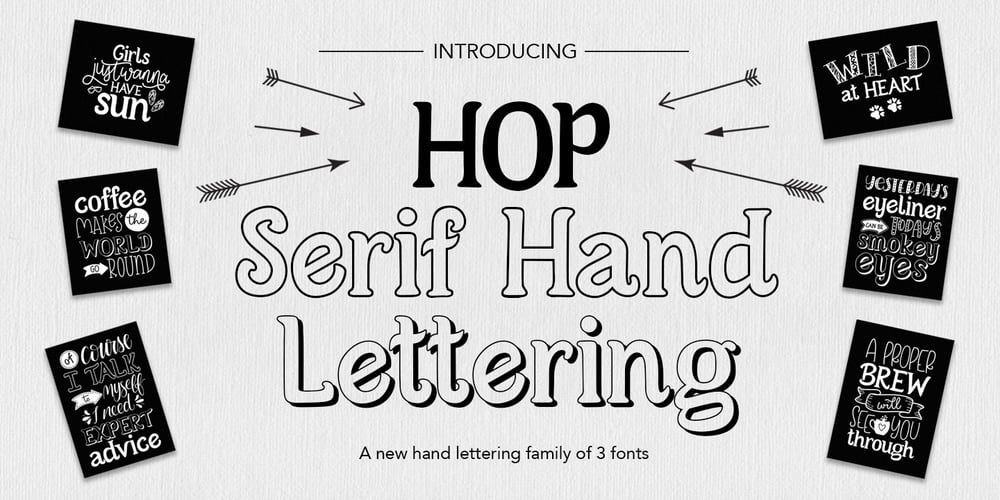
Hop Serif Hand Lettering Font Family was designed by Joanne Hewitt and published by Joanne Marie. Hop Serif Hand Lettering contains 3 styles and family package options. Here’s another font family for your hand lettering projects.Hop Serif Hand Lettering is a font family consisting of 3 styles:1.) Hop Serif Hand Lettering Regular2.) Hop Serif Hand Lettering Lines3.) Hop Serif Hand Lettering ShadowThis font family is all authentically hand drawn from pencil and paper to the digital screen and is perfect to include on designs for apparel such as mugs, t-shirts, bags, notebooks, inspirational quotes for the home and office, and more. Each font is multi-lingual too!I love using this font in my hand lettering designs and I hope you will too!